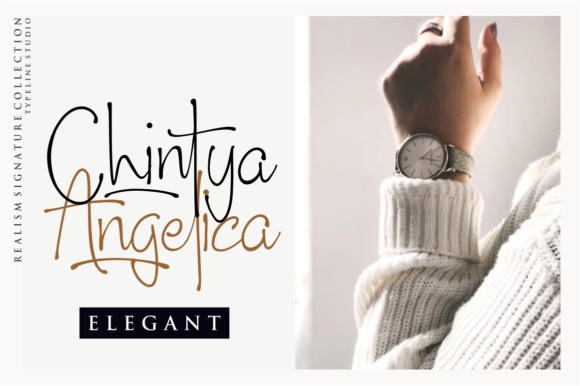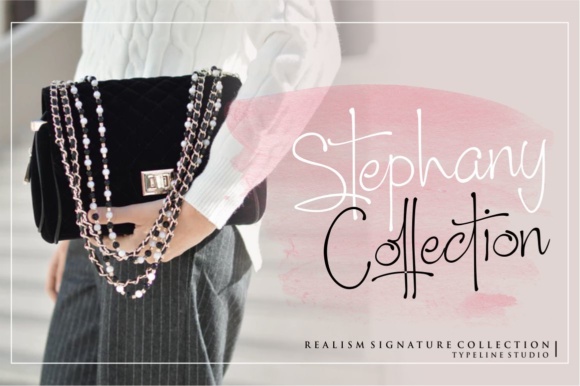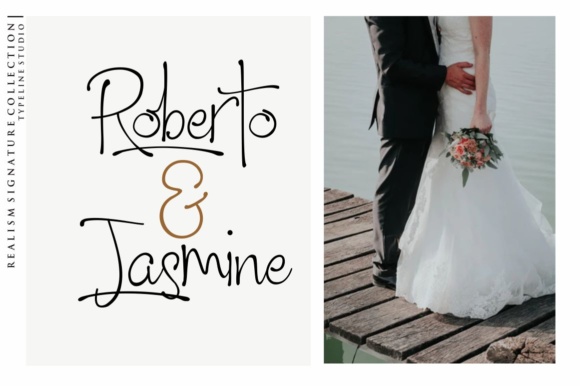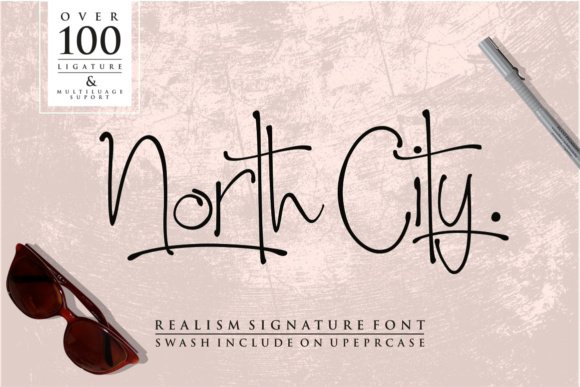
Introduction to North City Font
As a graphic designer, we are often asked to design logos in Signature style, but with real and natural handwriting nuances.
So, this font is a manifestation of this idea North City is perfect for branding, you won’t get funny or weird logos with this font.
North City Font offers exceptional quality and versatility, making it a valuable addition to your design toolkit. Whether you’re creating for personal projects or commercial use, North City Font delivers professional results.